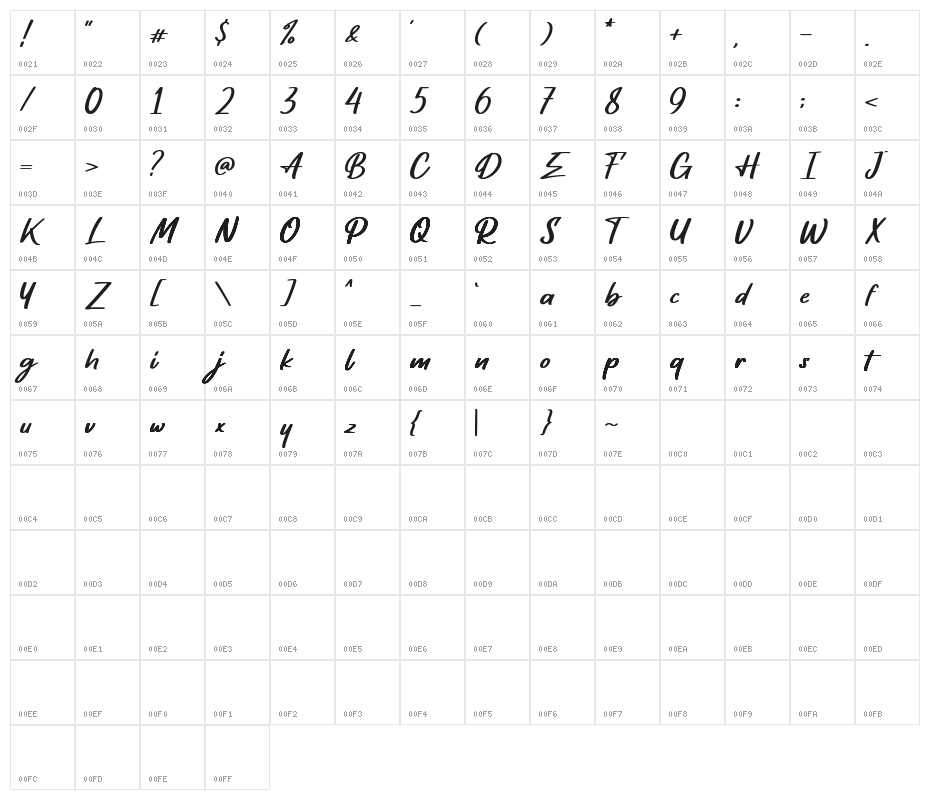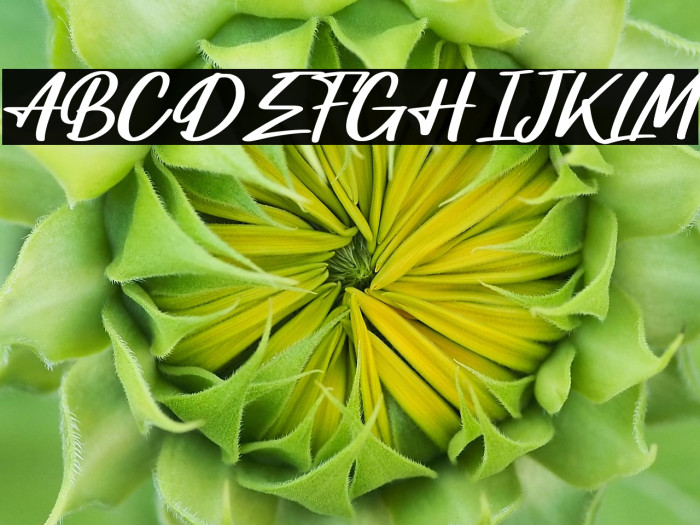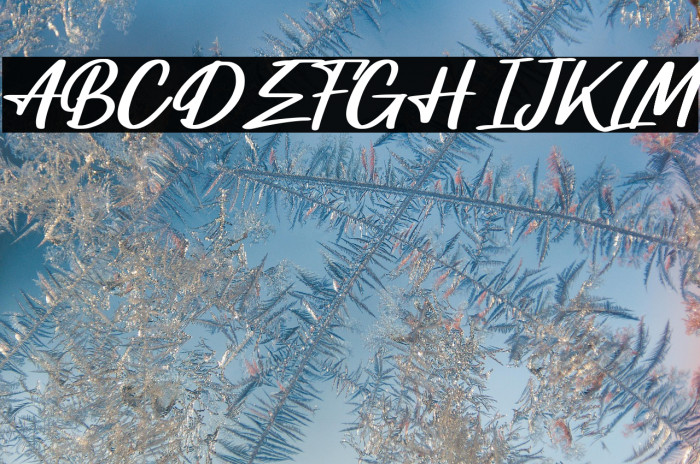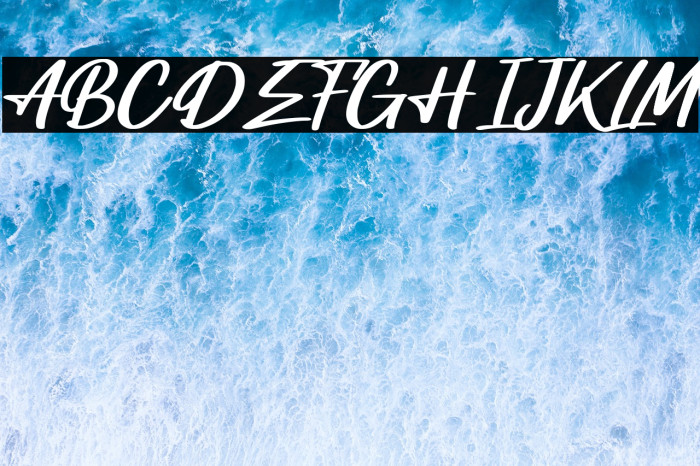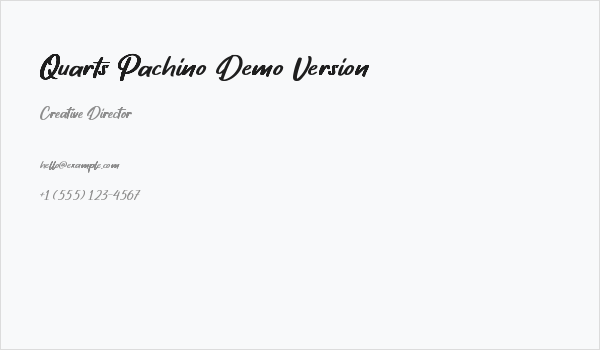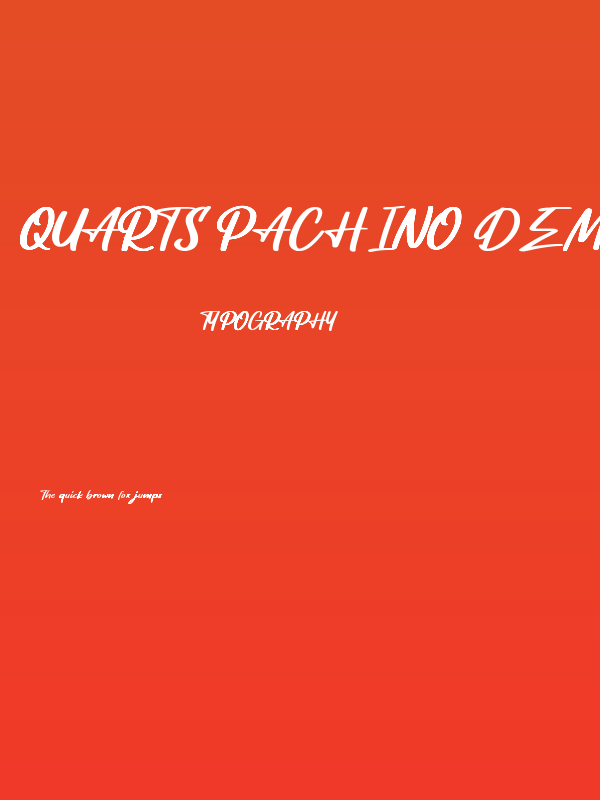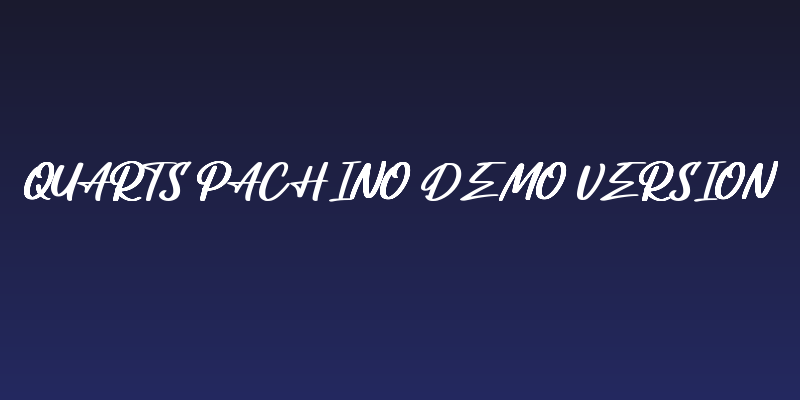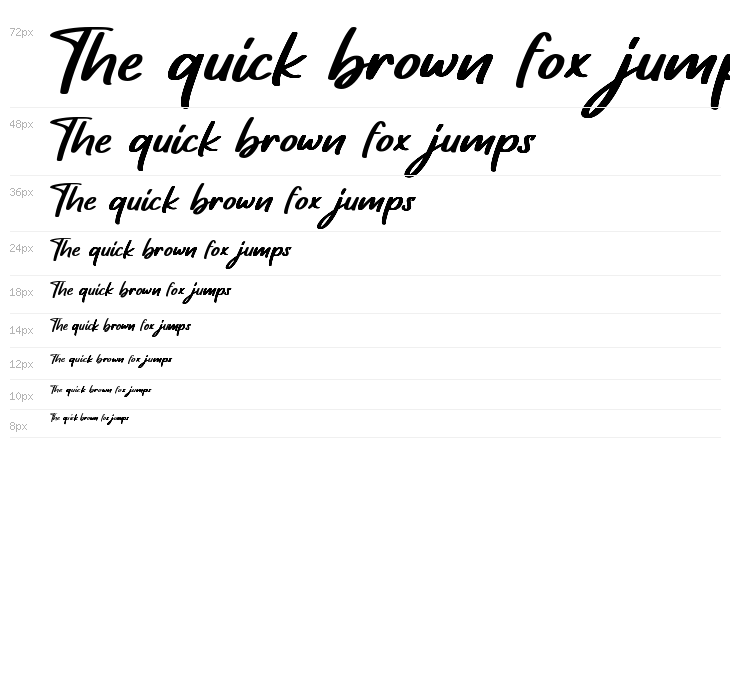
Quarts Pachino Demo Version Font
Quarts Pachino Demo Version Description
This font features a dynamic and expressive script style, characterized by its fluid, cursive strokes and a sense of movement. The uppercase letters are bold and slightly slanted, giving a sense of elegance and flair. The lowercase letters maintain a consistent flow, with smooth connections between characters, enhancing readability while preserving the artistic touch. Numbers and special characters are crafted with the same attention to detail, ensuring a cohesive look across all elements. The overall design is modern yet retains a classic script charm, making it versatile for various creative applications.